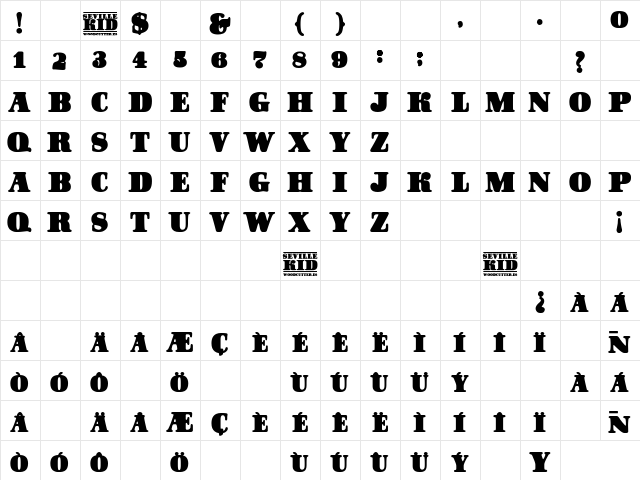
Seville Kid Regular
Design Context for Seville Kid Typeface
Seville Kid is a composed and adaptable typeface that performs quietly and consistently across a wide range of design contexts.